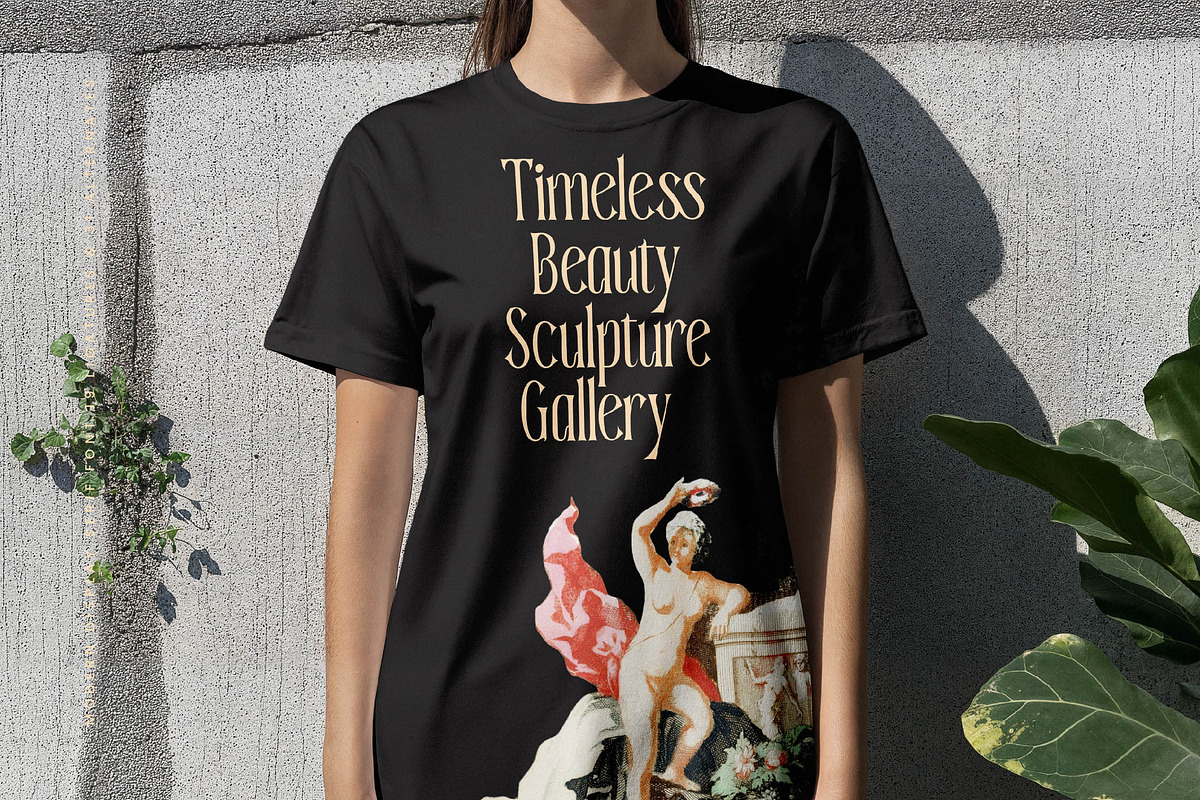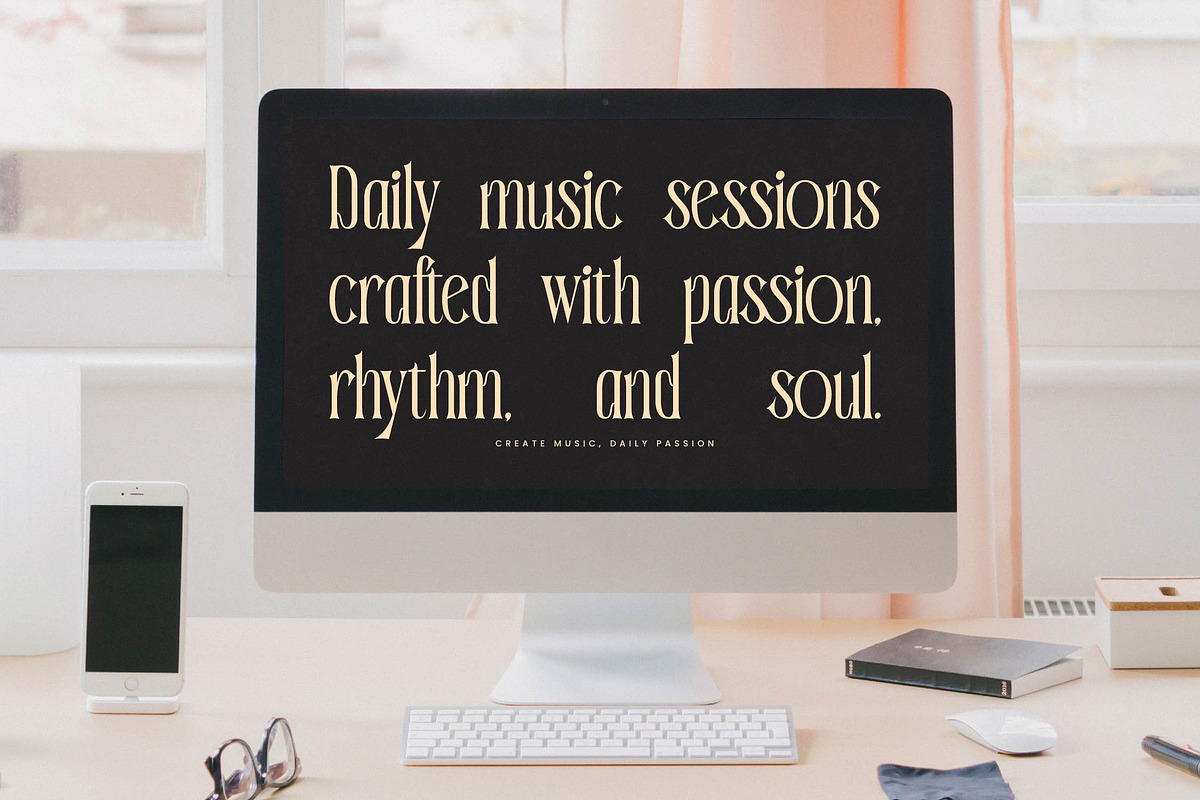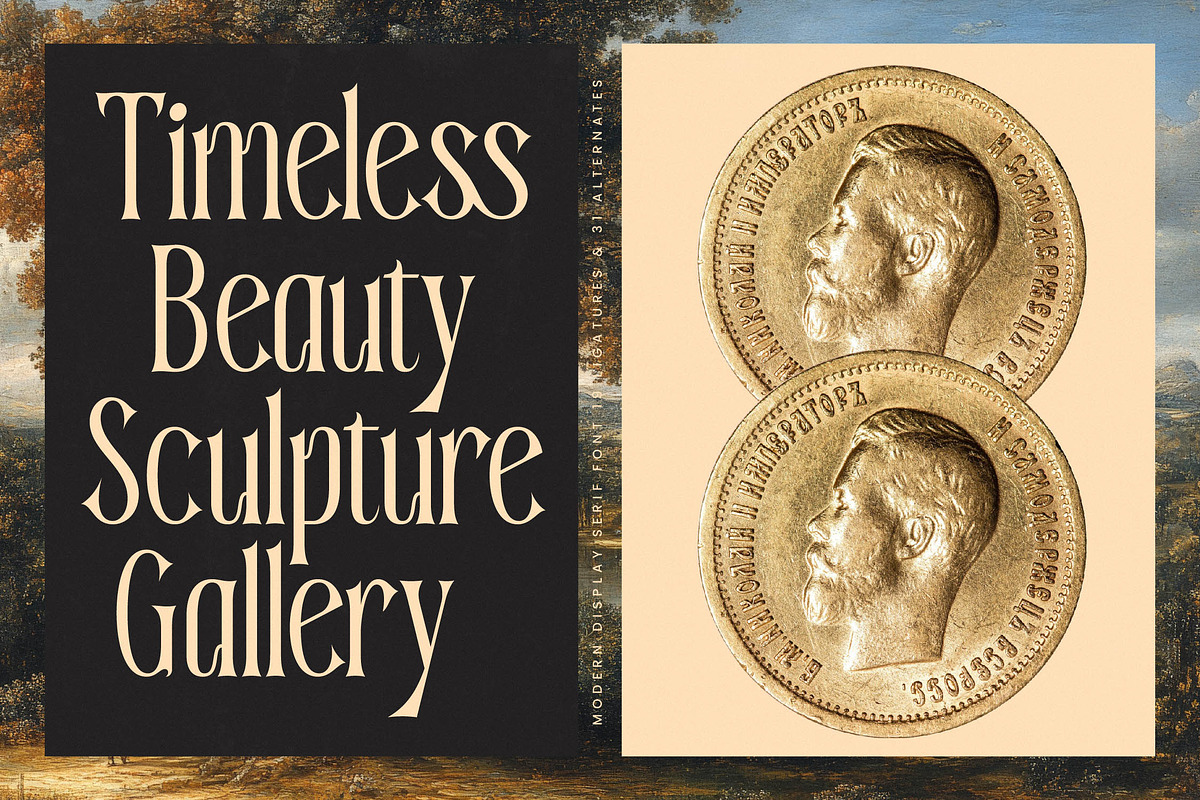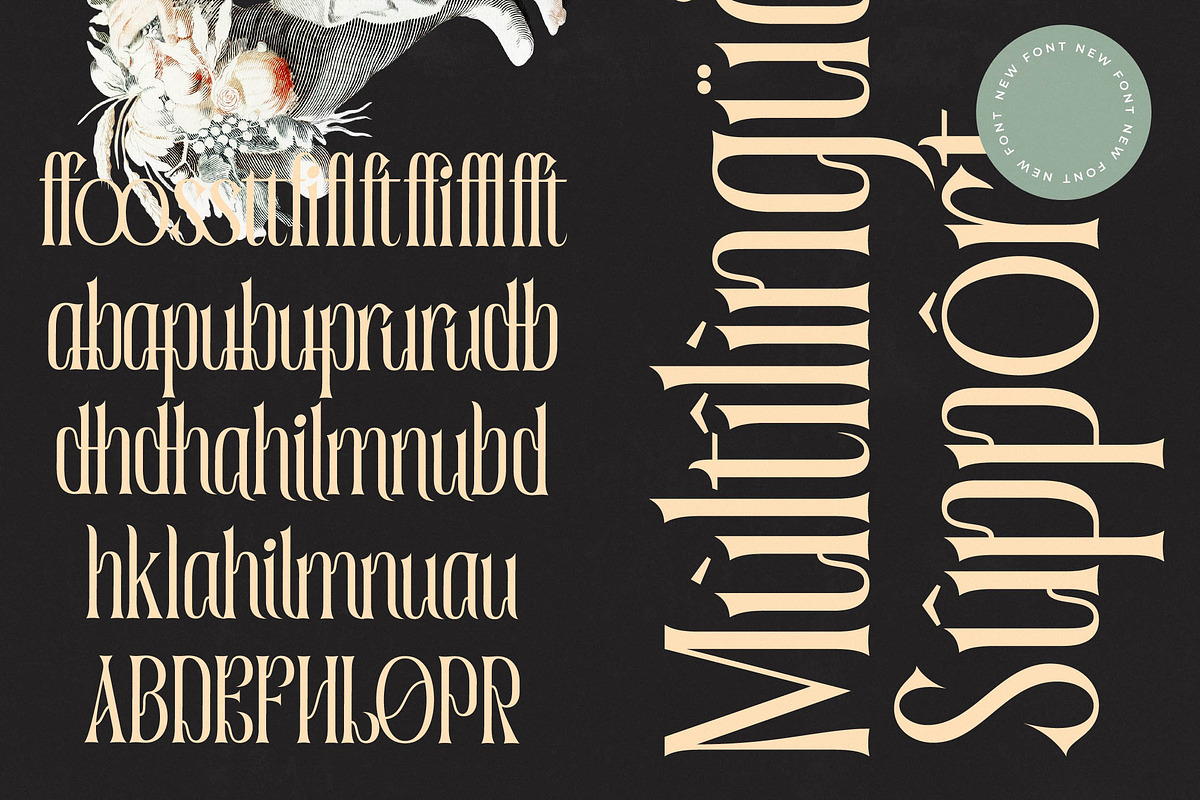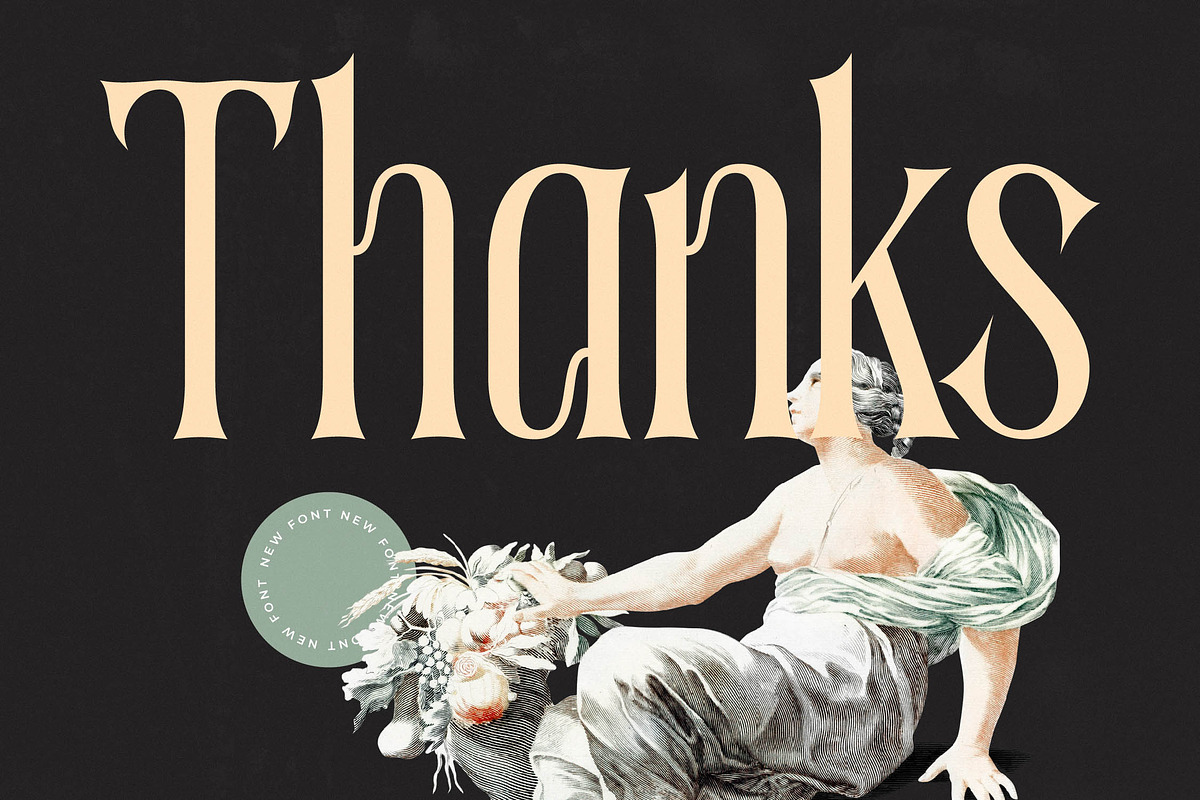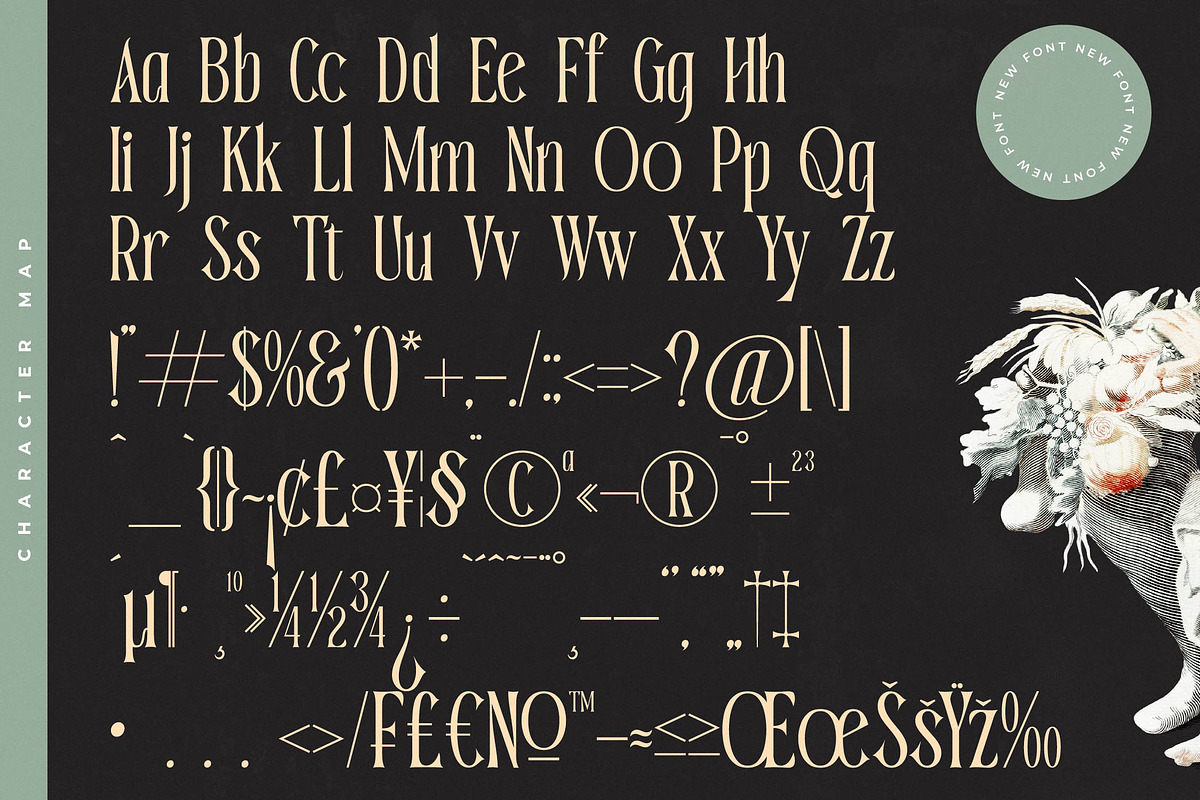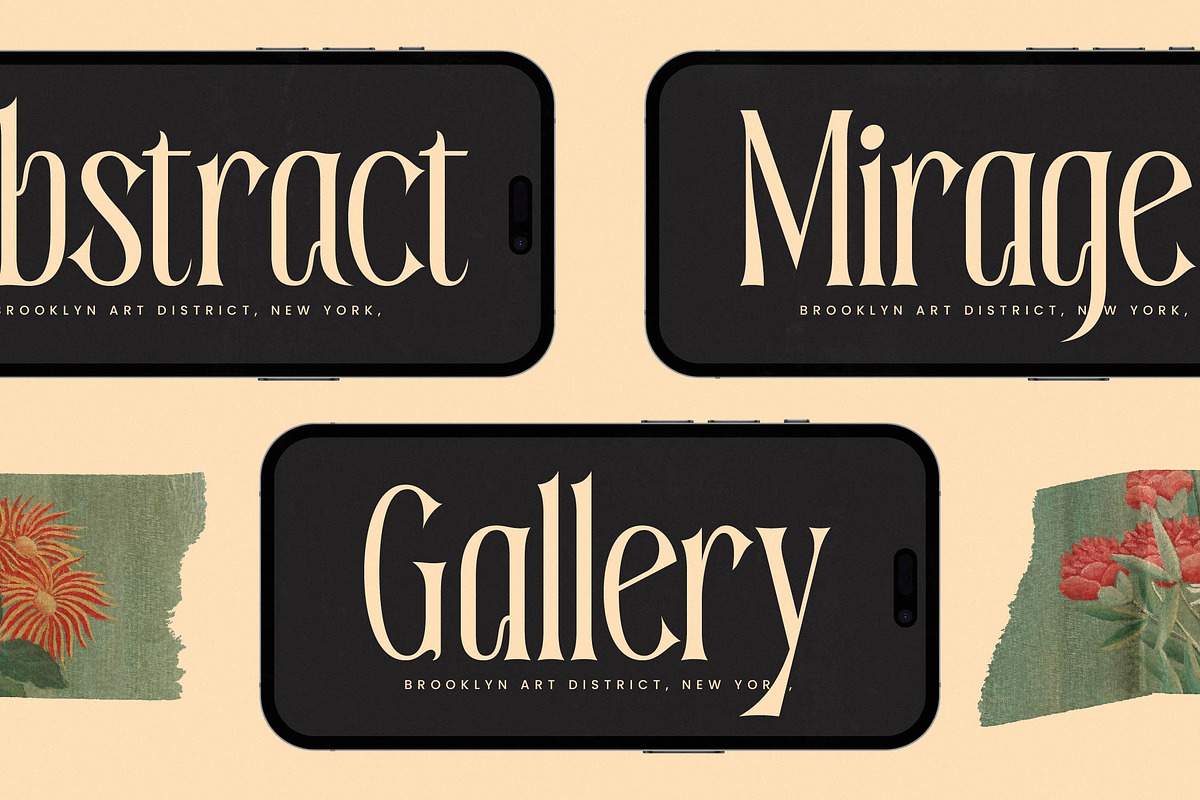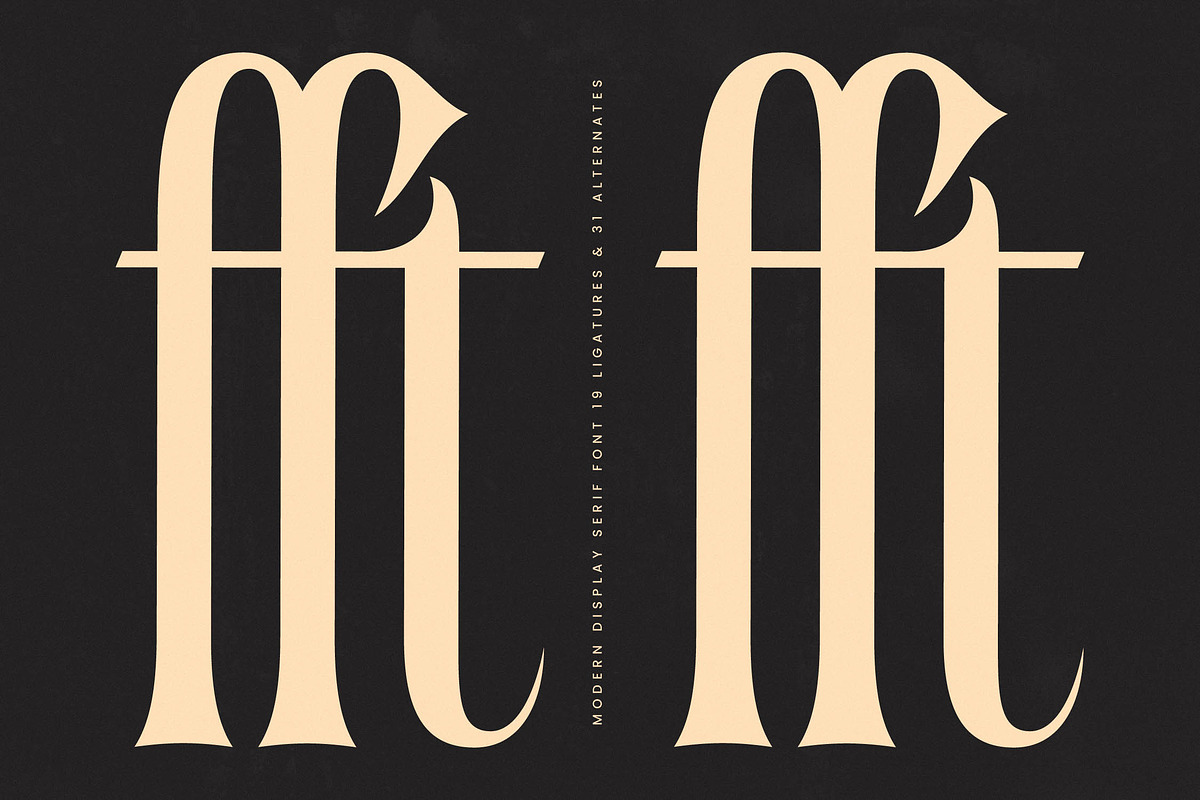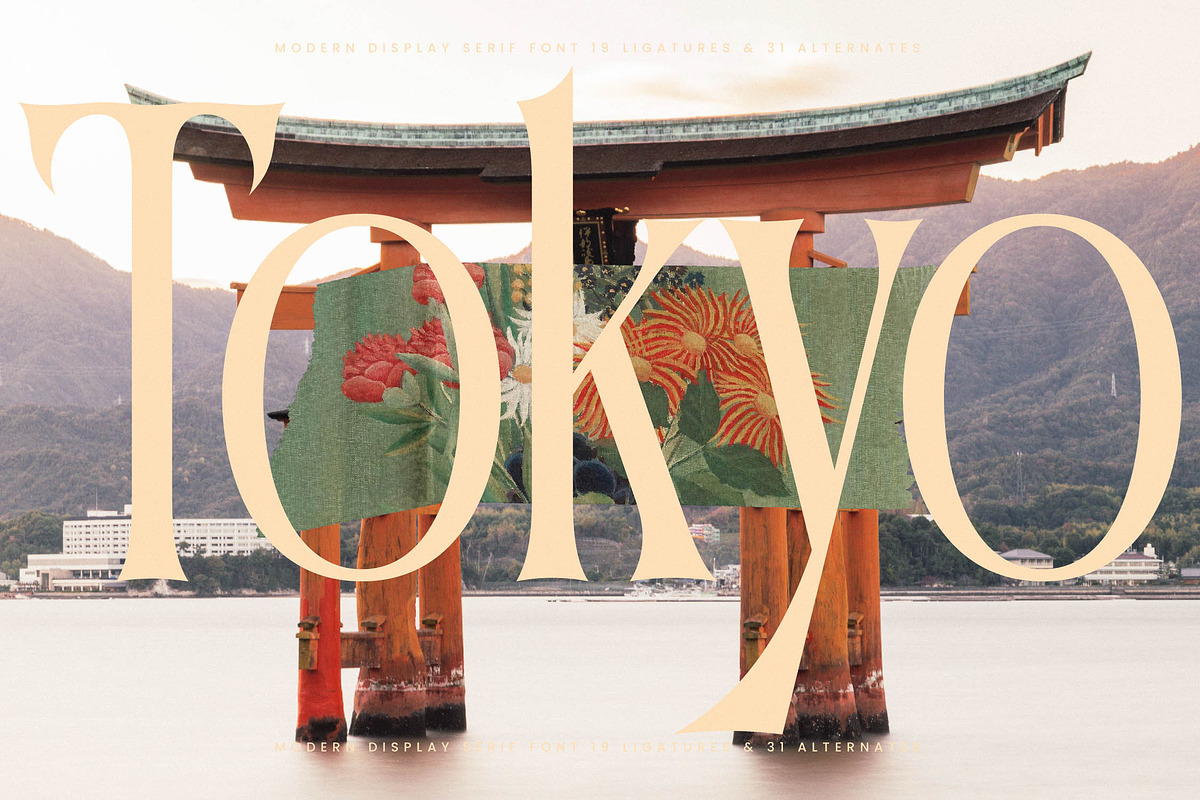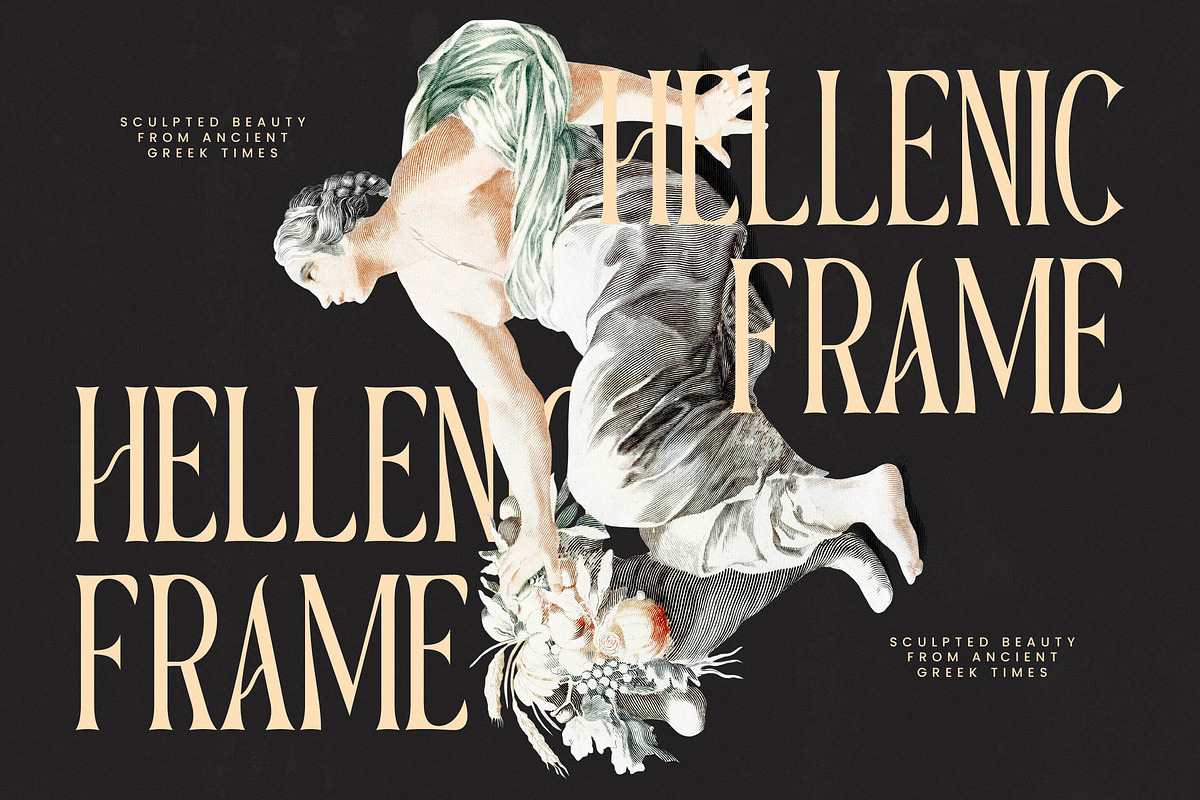
Garugis Modern Display Serif
Garugis captures a breathtaking balance between classical elegance and contemporary edge, making it an essential addition to any designer's toolkit. This typeface is crafted for those who demand a sophisticated presence in every character they type.
Inspired by the timeless beauty of Renaissance sculptures and the refined precision of early 20th-century editorial layouts, this font evokes a sense of historical grandeur reimagined for the digital age. It draws from a palette of artistic flourishes to bring a sculptural quality to your digital canvas.
Boasting a modern serif display aesthetic, this luxury typography solution offers a high-contrast serif design that radiates confidence and class. It serves as an exceptional editorial font that ensures every headline delivers a powerful branding impact.
Staying ahead of the modern serif trend, this typeface aligns perfectly with the current shift toward editorial display fonts that prioritize personality over generic minimalism. It is a prime example of character-driven typography that meets the needs of today's aesthetic-conscious market.
Whether you are working on high-end logo design, cohesive branding systems, or sophisticated editorial layouts, this font excels in every scenario. It is a flawless choice for luxury packaging, romantic wedding stationery, and avant-garde fashion lookbooks.
The package includes a rich set of ligatures and alternates that allow for deep customization and unique typographic textures. With full multilingual support and a wide range of international characters, it is ready for global design projects.
- Ligature 19 Alternate 31